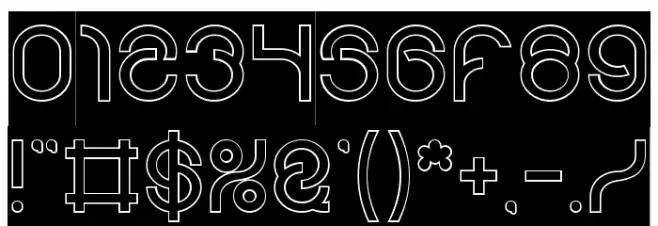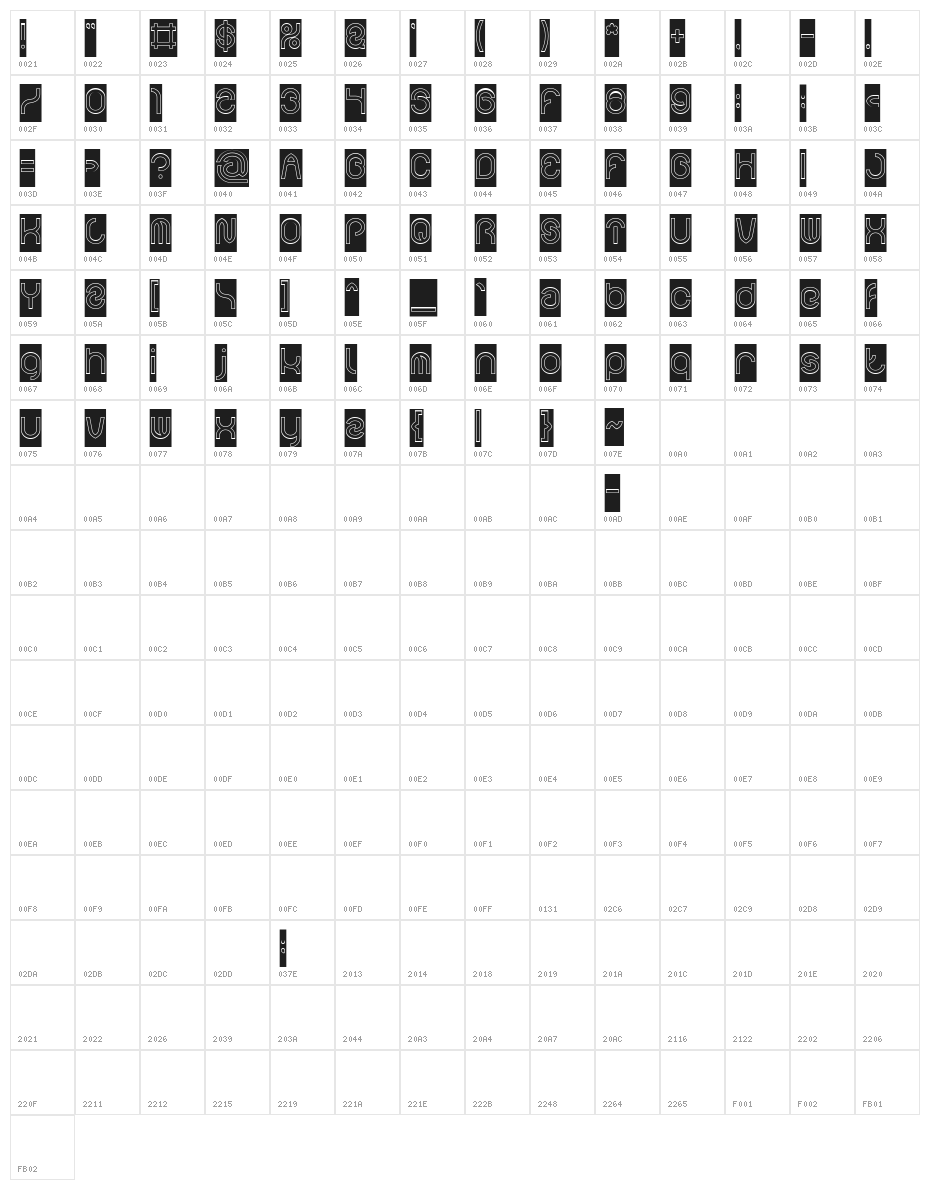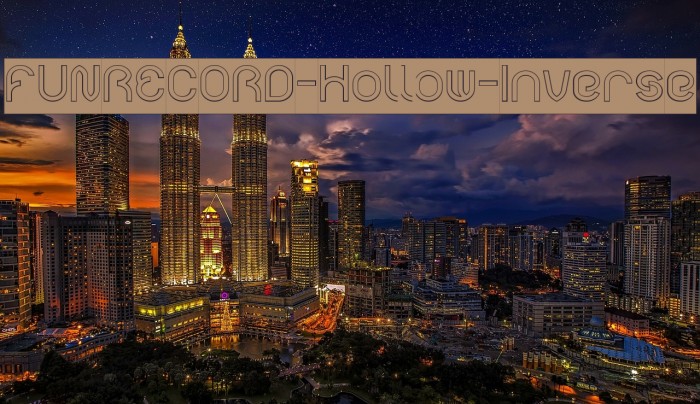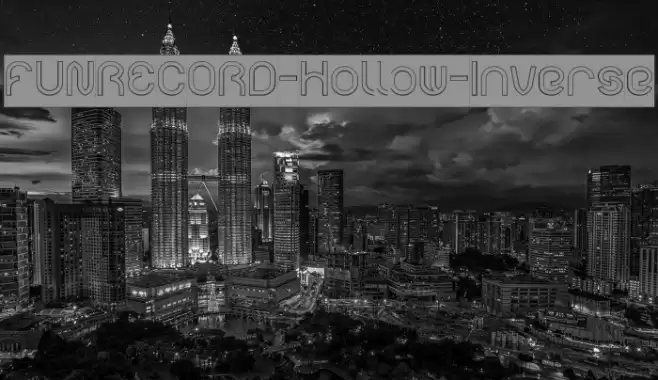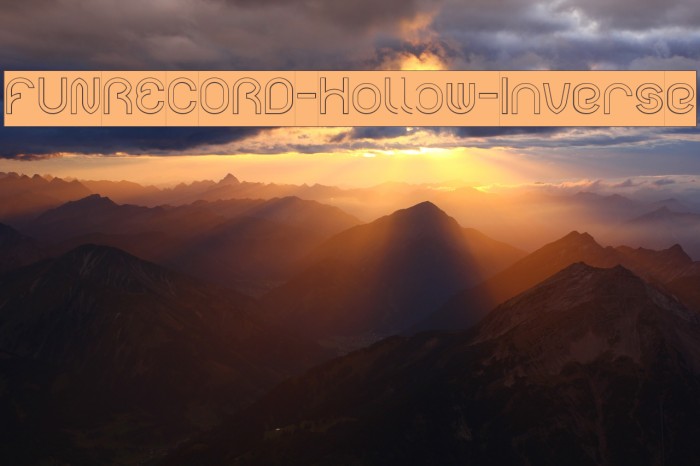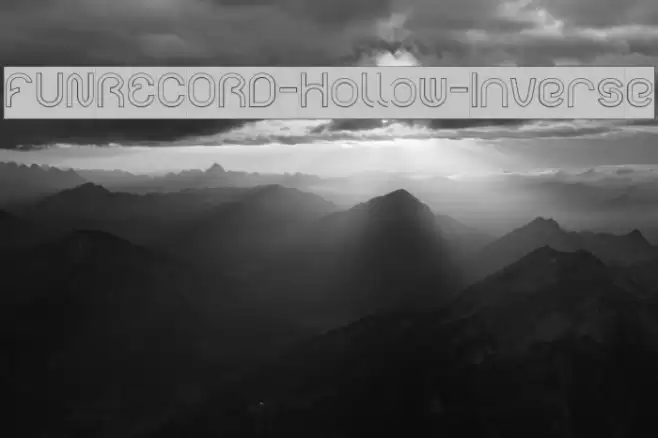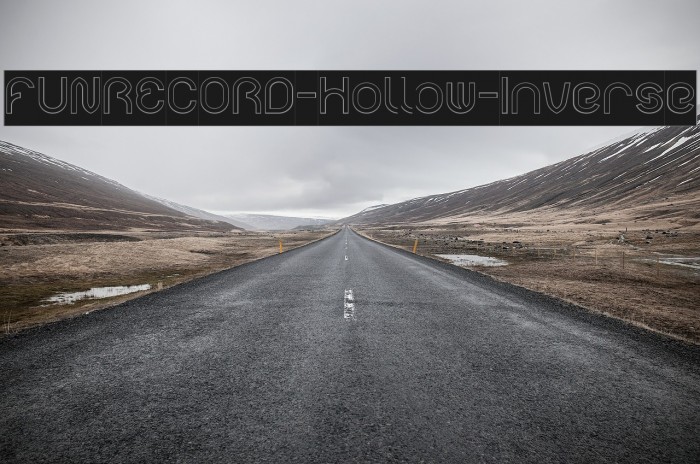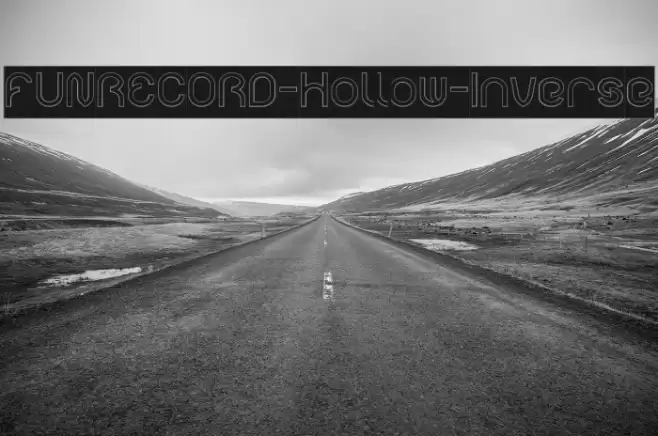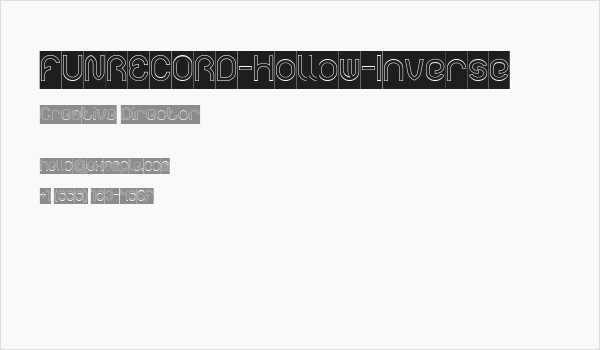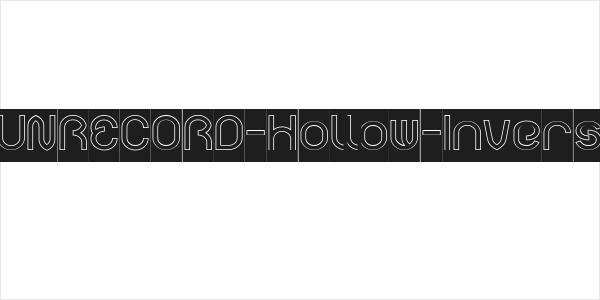
FUNRECORD-Hollow-Inverse Font
FUNRECORD-Hollow-Inverse Description
This font features a hollow, inverse design with a modern and geometric aesthetic. The characters are outlined, creating a striking visual effect that stands out against dark backgrounds. The uppercase and lowercase letters maintain a consistent style, with rounded edges and uniform line thickness. The numbers and special characters follow the same design principles, ensuring a cohesive look across all elements. This font is ideal for projects that require a bold and contemporary appearance.